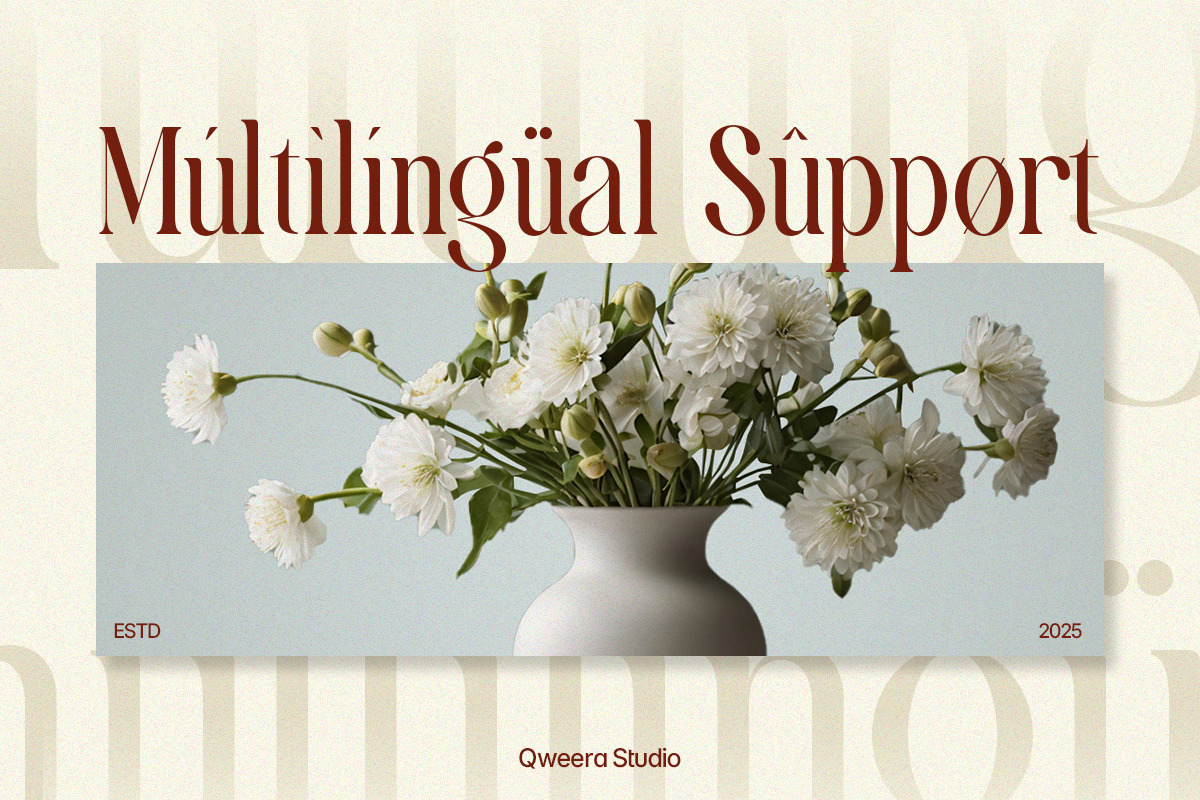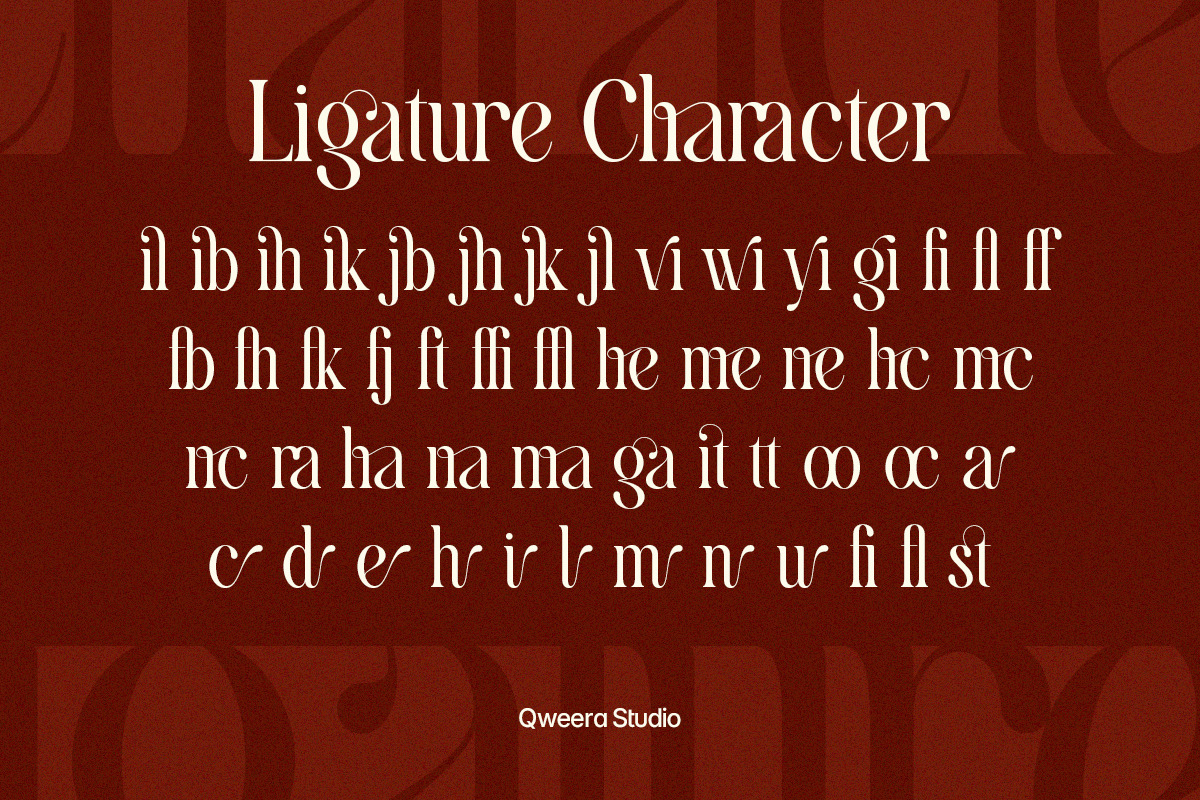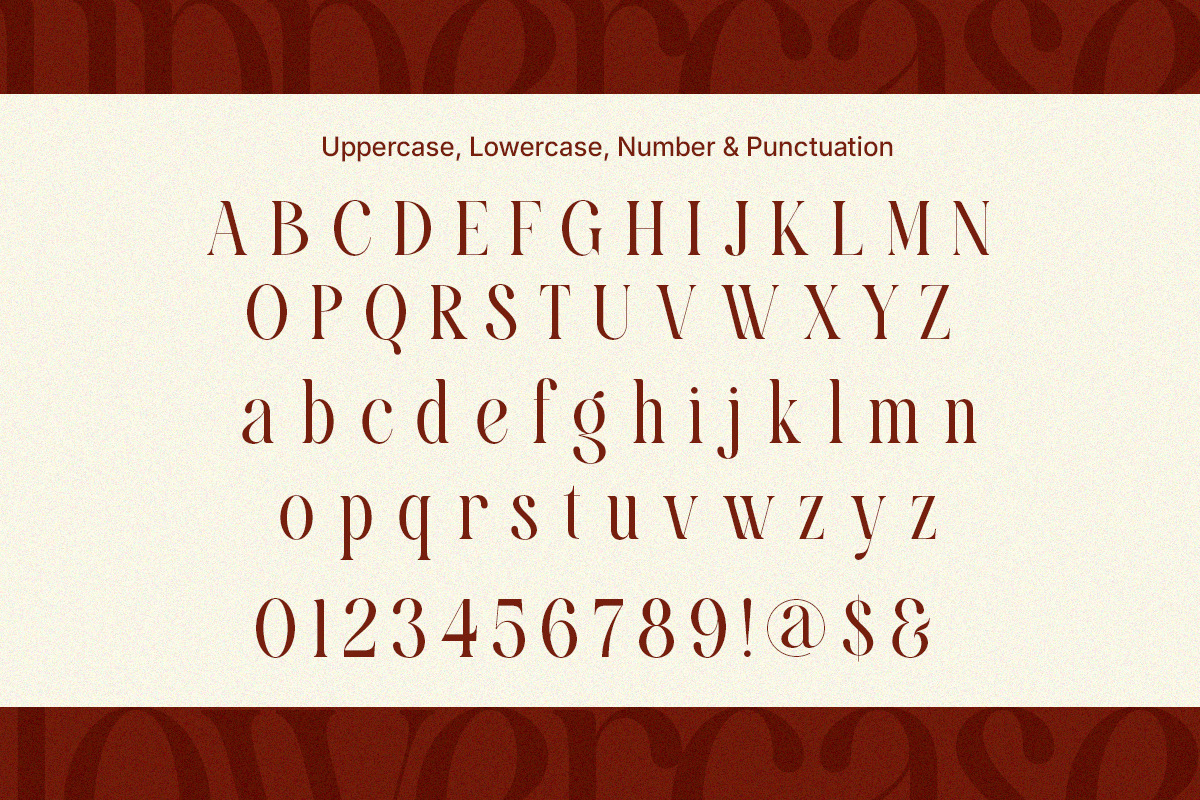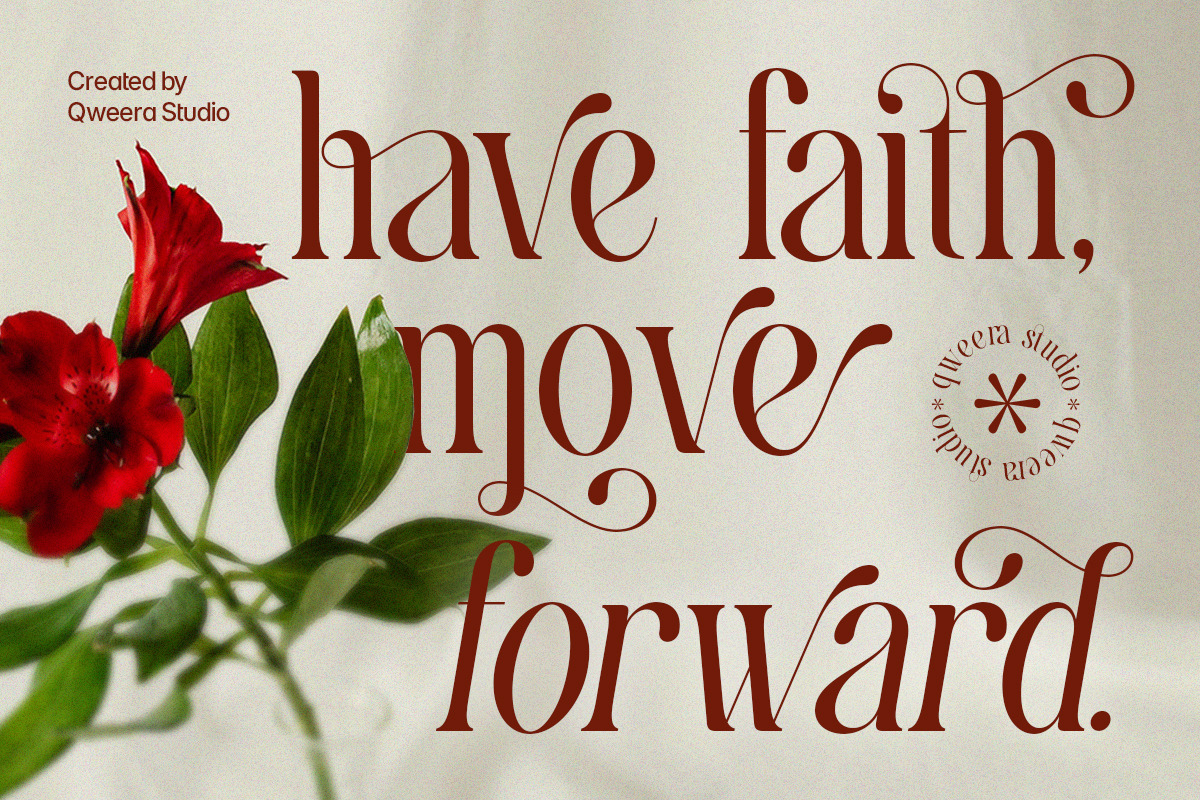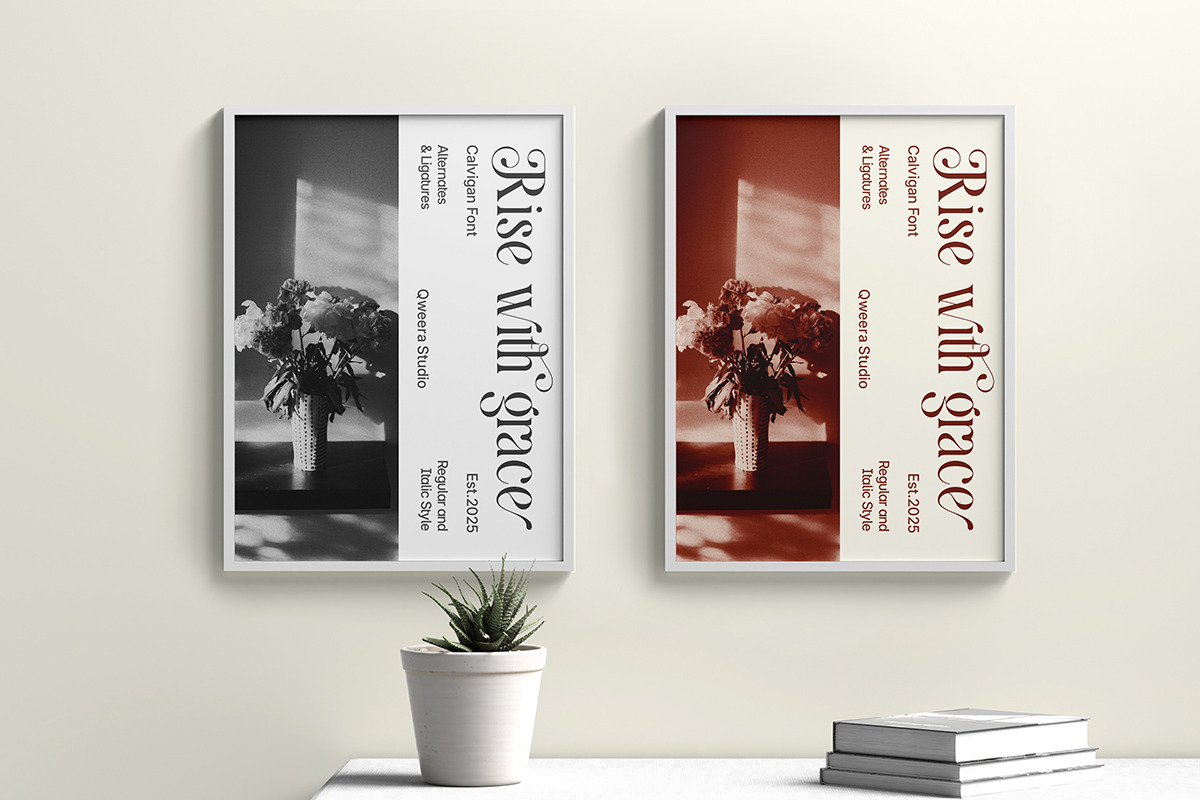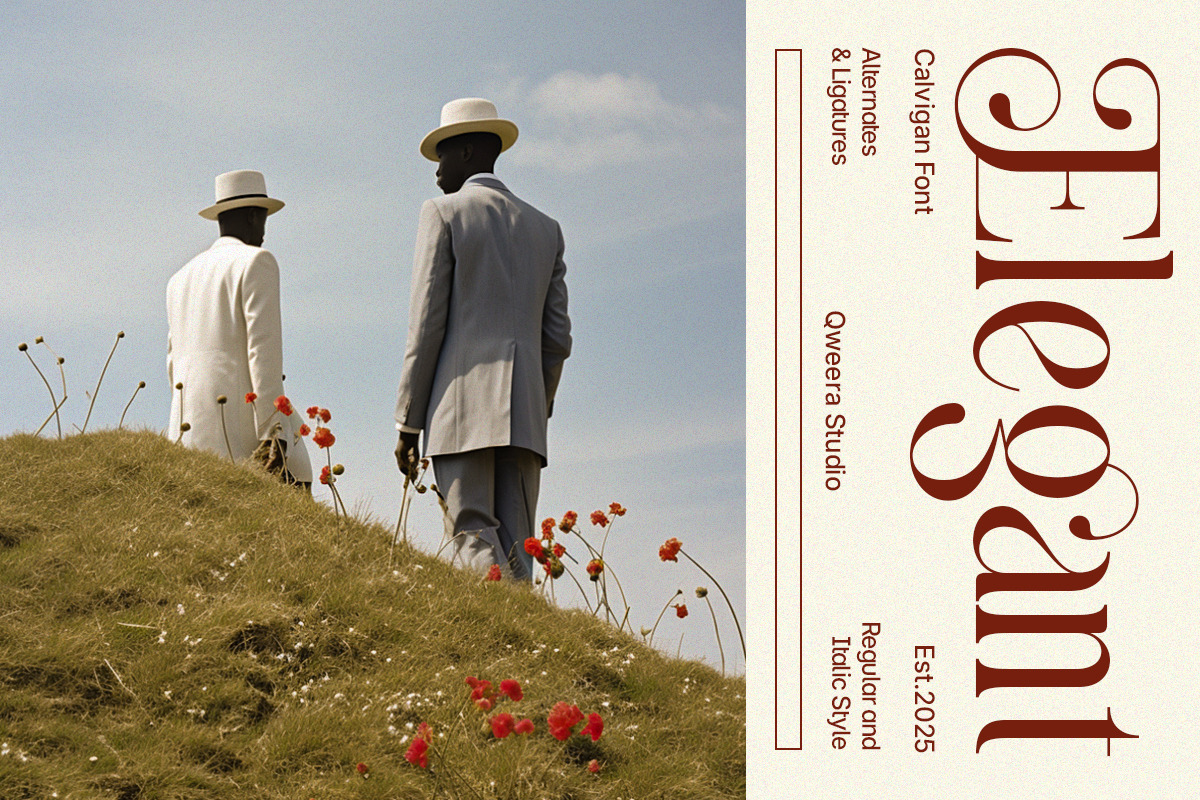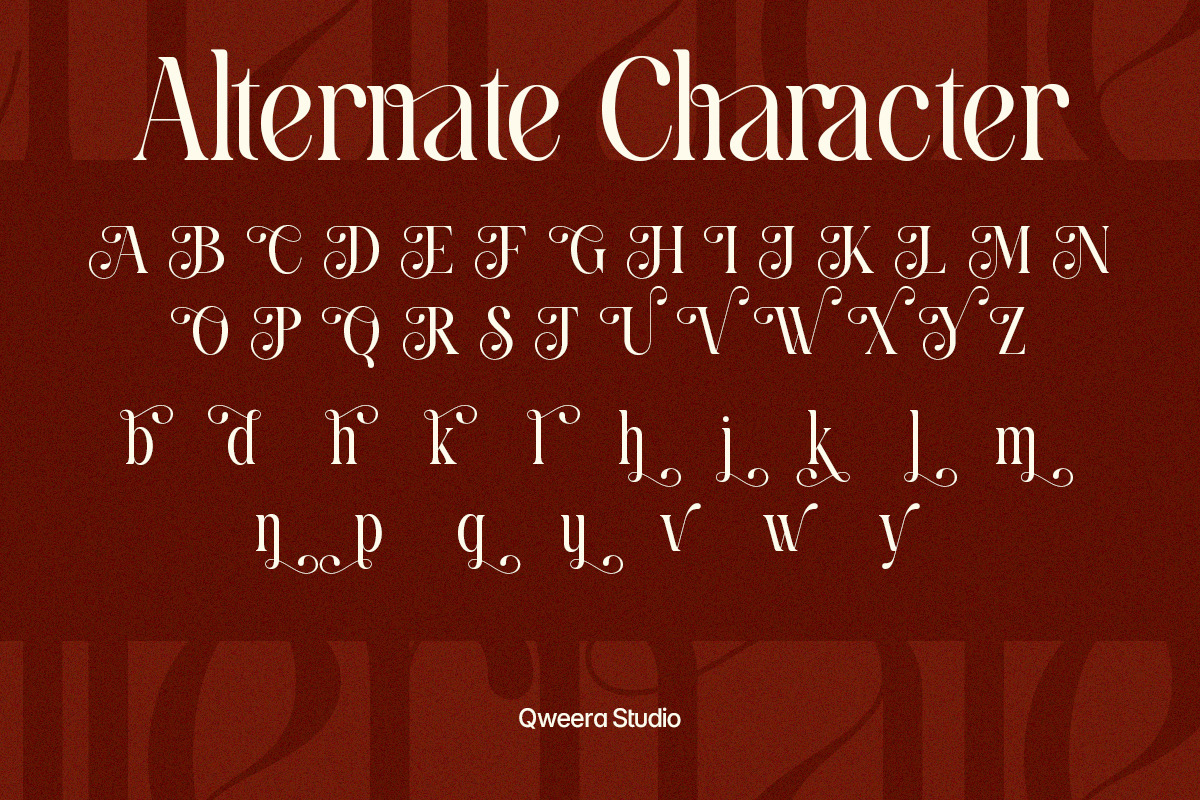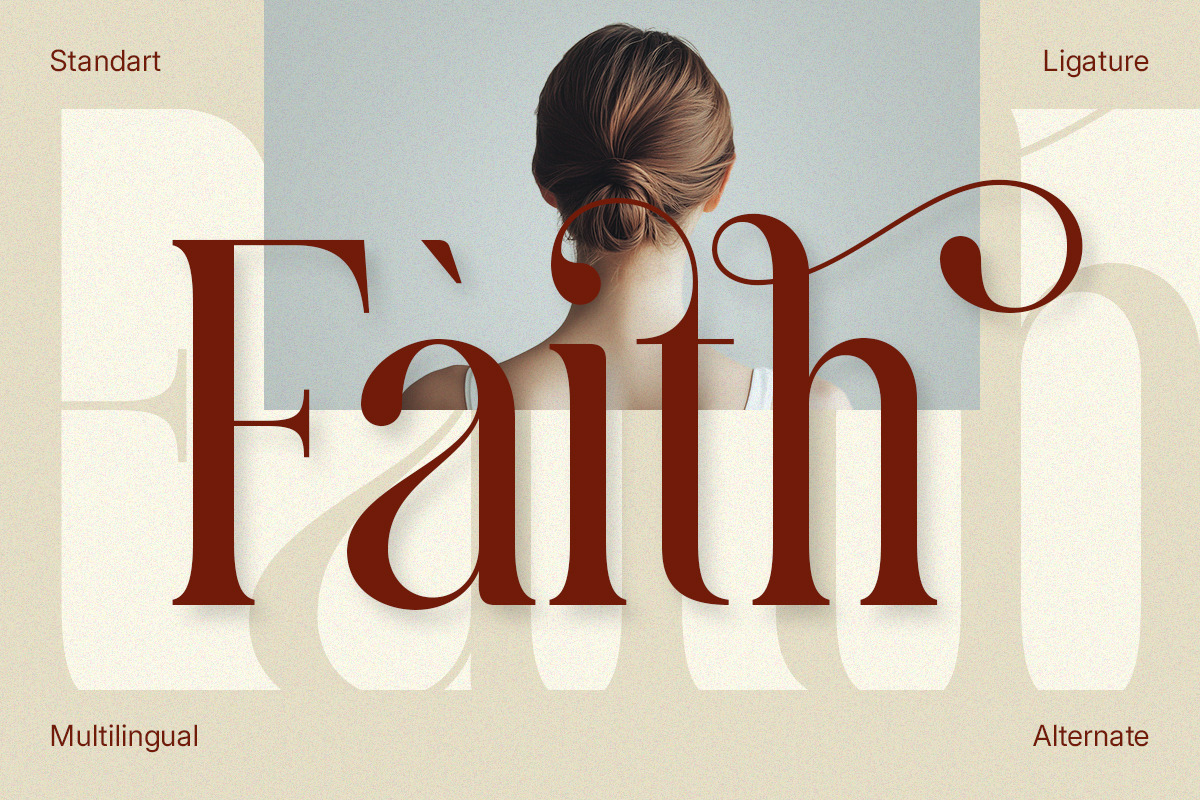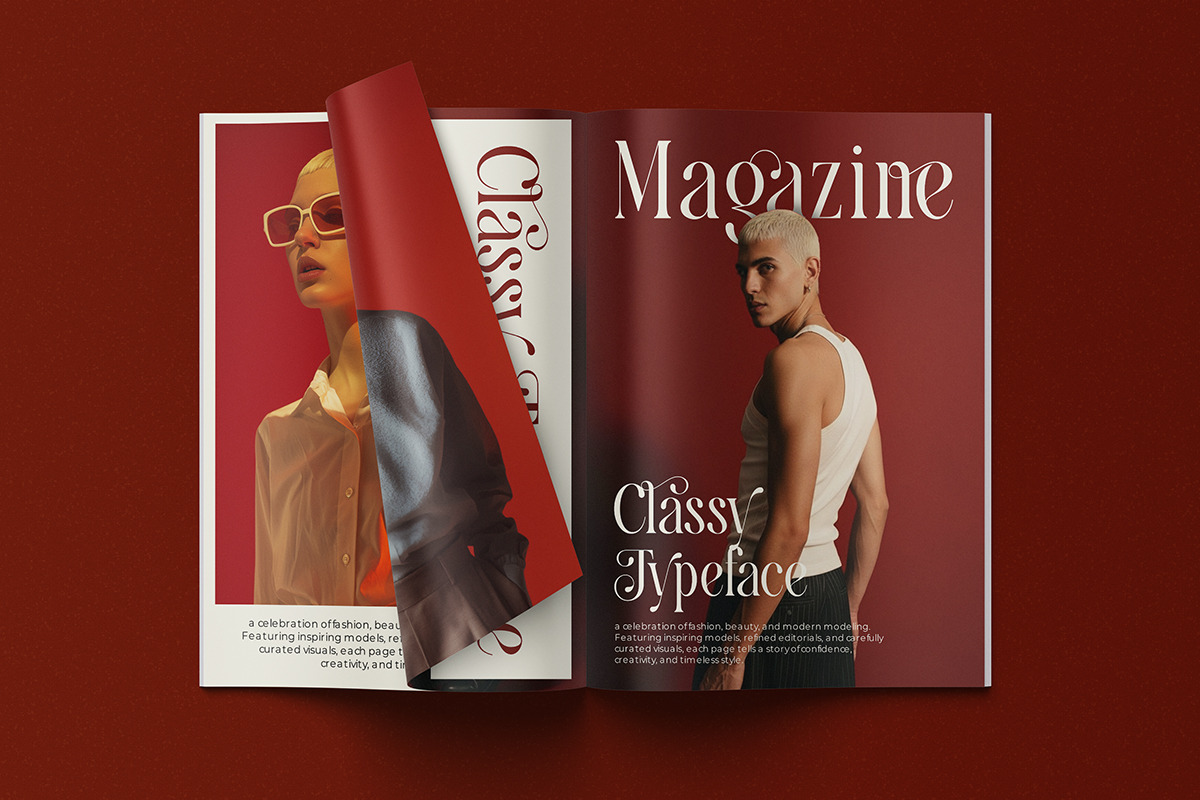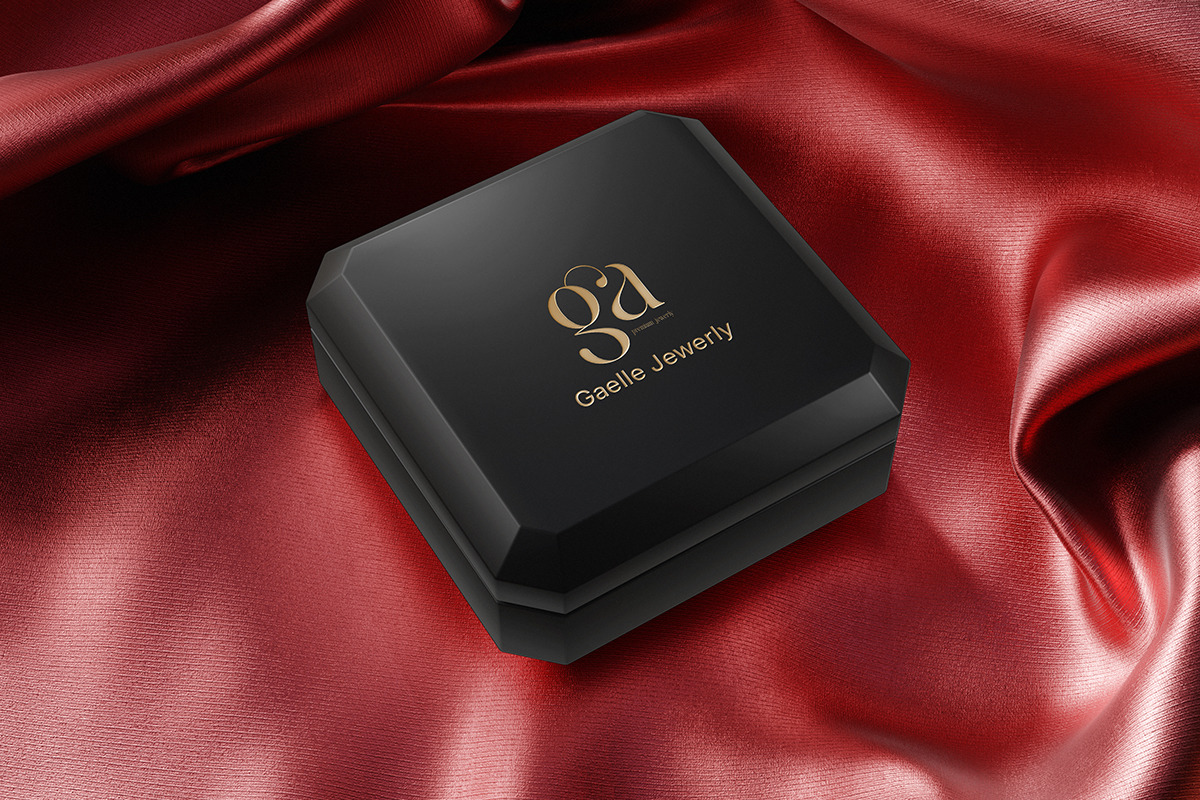
Calvigan - Romantic Elegant Luxury
Calvigan is a stylish modern serif typeface created for elegant branding and premium visual identity. With smooth contrast, refined curves, and beautiful ligatures, it delivers a luxurious romantic presence.
Perfect for boutique logos, wedding stationery, beauty brands, packaging, invitations, and magazine titles, Calvigan blends timeless beauty with modern style.
Designed for creators who value elegance, softness, and upscale presentation.
- Alternates & ligatures
- Regular & Italic
- Luxury serif styling
Wedding branding, boutique logos, invitations, beauty packaging, editorial headlines, fashion campaigns